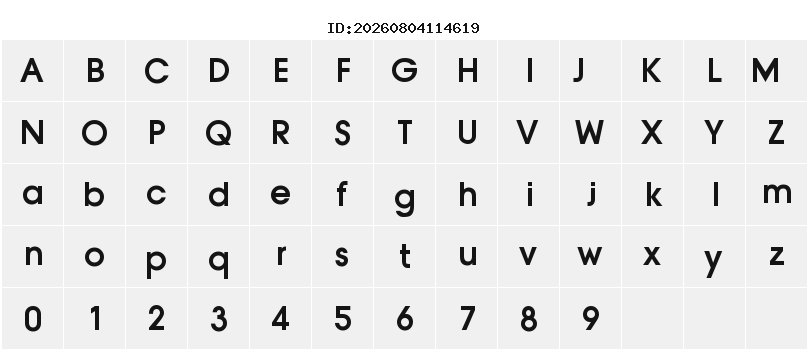
• Font Name: Nolasco Sans
• Full Font Name: Nolasco Sans
• Designer: Karlo Nolasco
About Nolasco Sans.ttf
Nolasco Sans.ttf is a modern, elegant sans-serif font designed for ultimate readability and visual harmony. Perfect for branding, headlines, web design, and print materials.